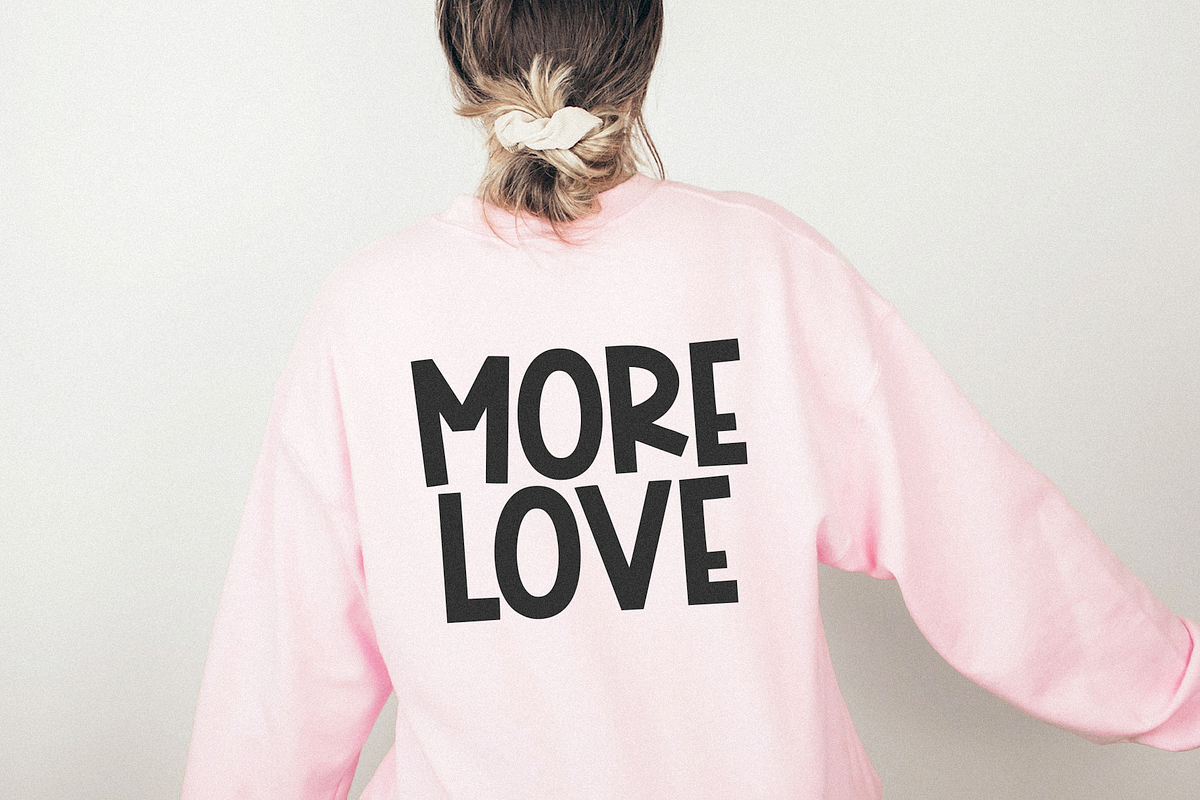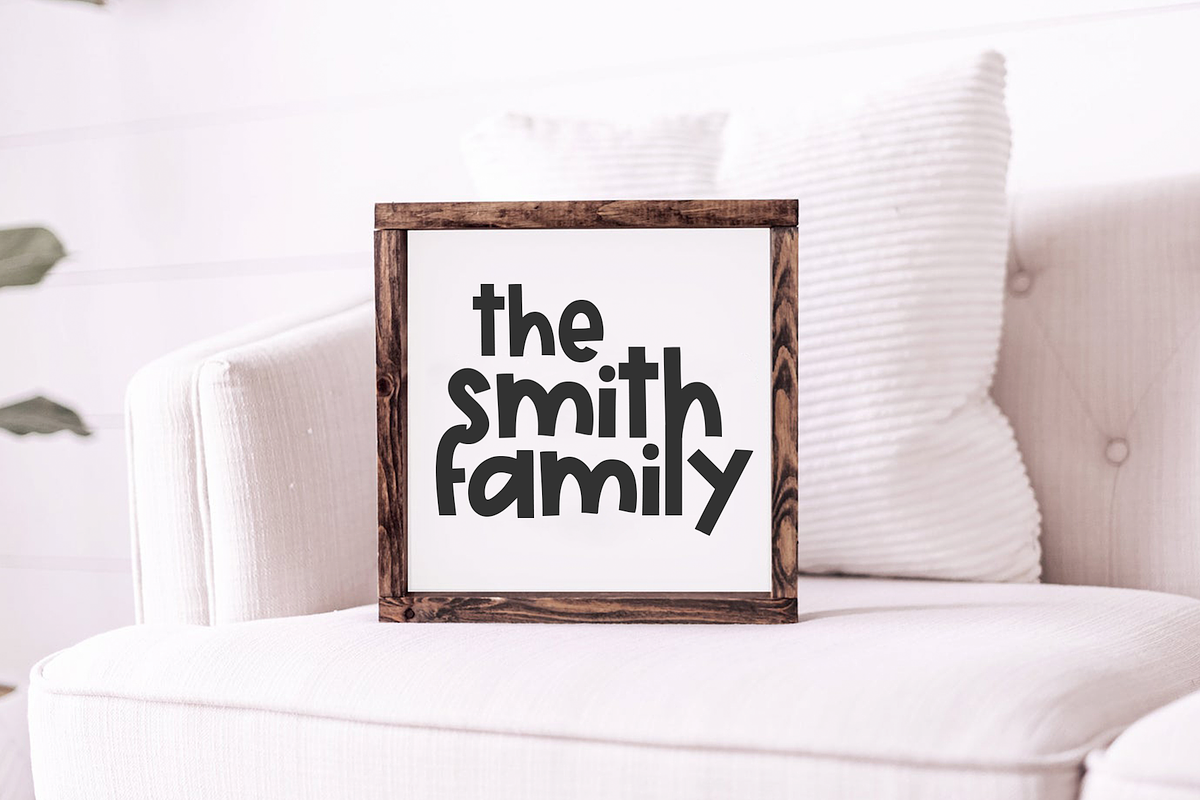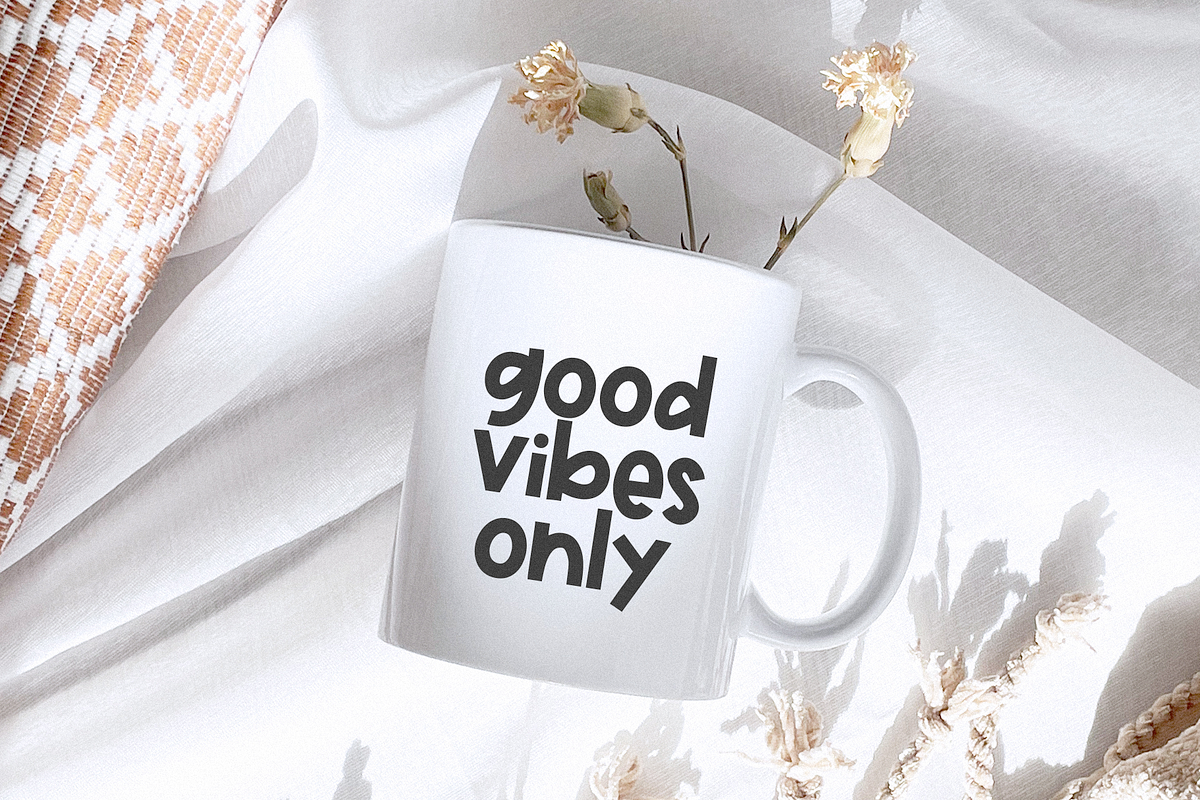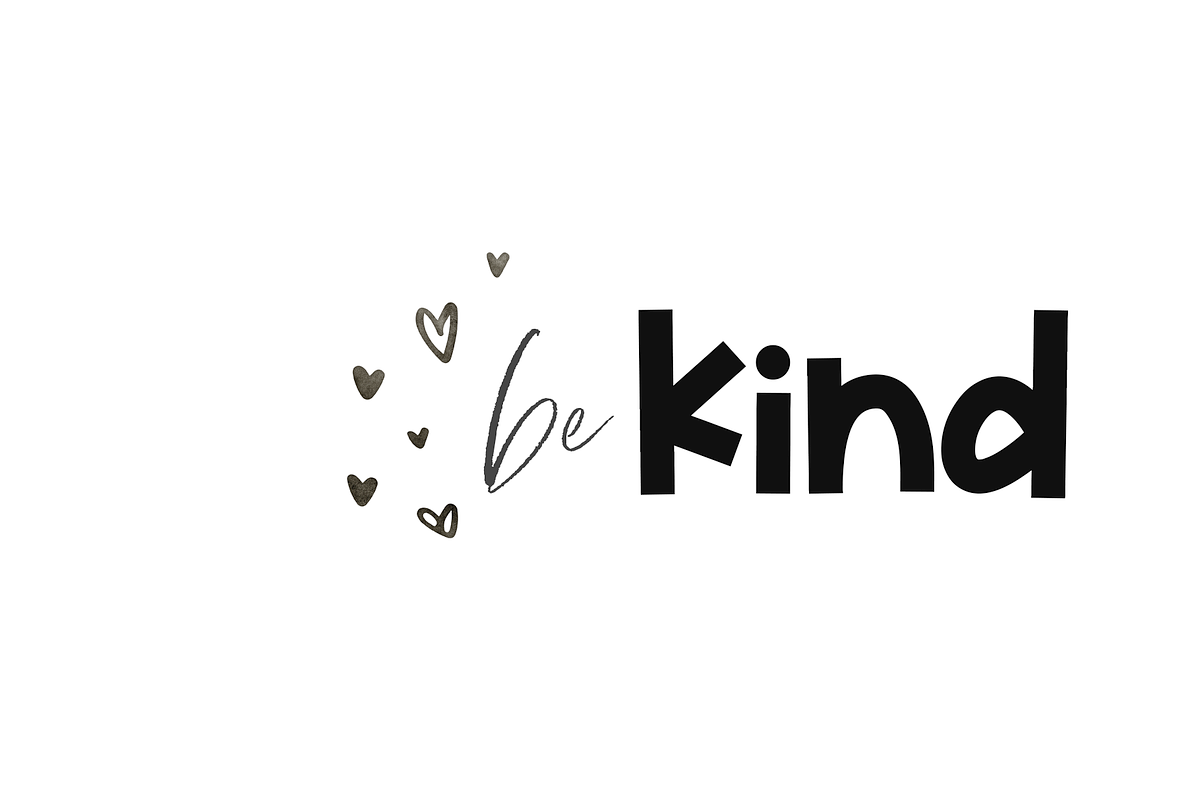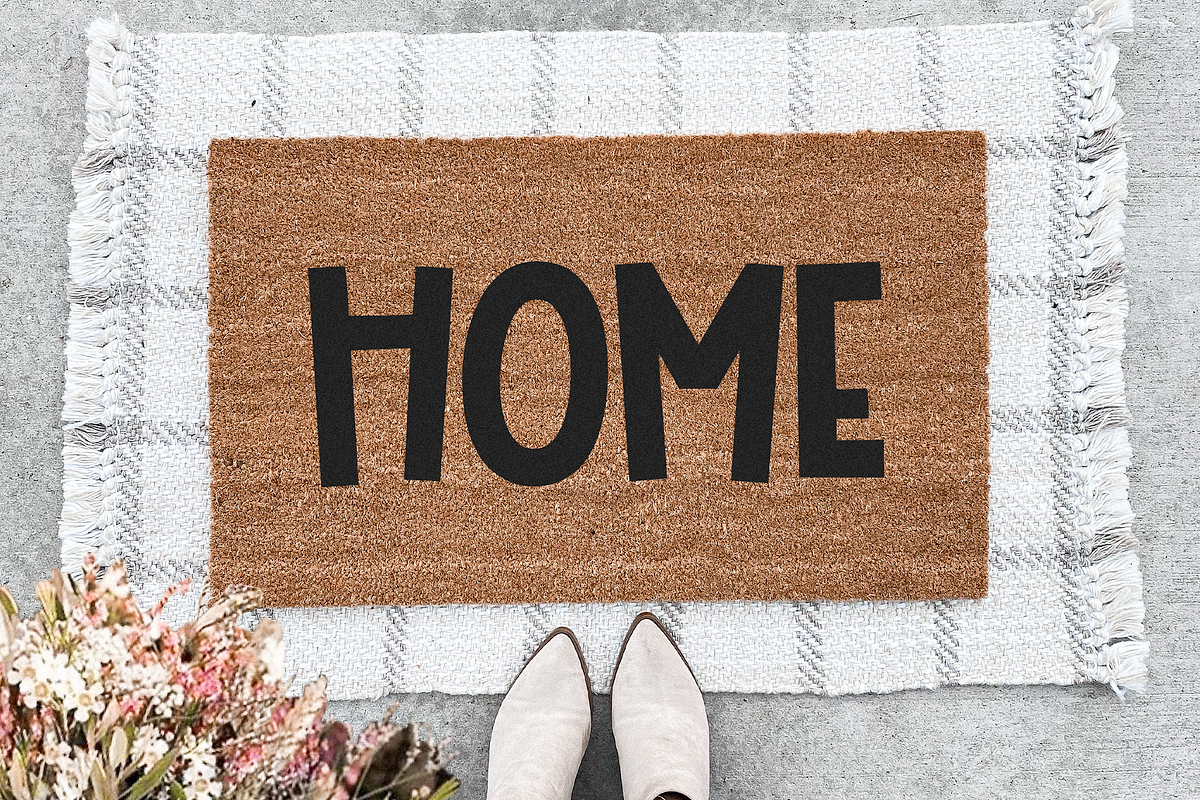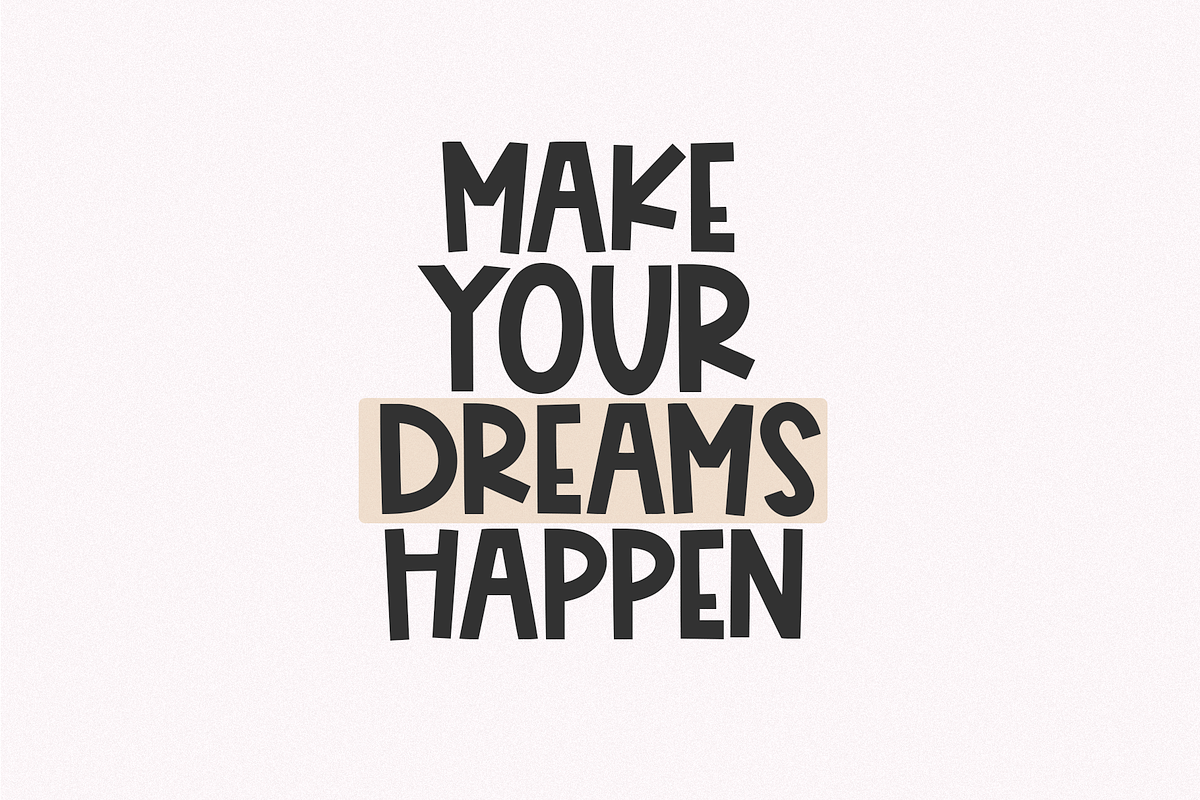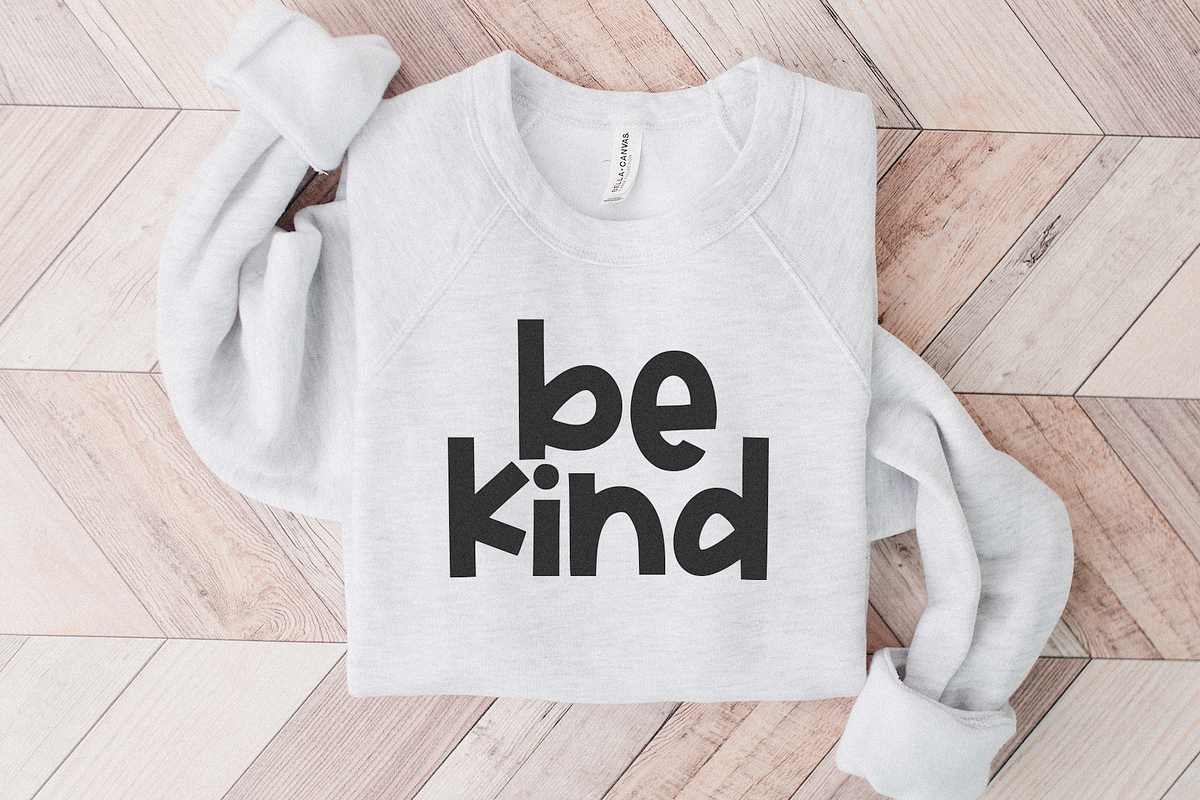
Day Dreamer | Fun Handwritten Font
Day Dreamer is a cute & quirky handwritten font.
This font is perfect for cricut projects, svg files, teachers, procreate, quotes, shirts, mugs, headings, logos, invitations and more!
Day Dreamer | Fun Handwritten Font by KA Designs fits naturally into Branding, posters, packaging, typography.